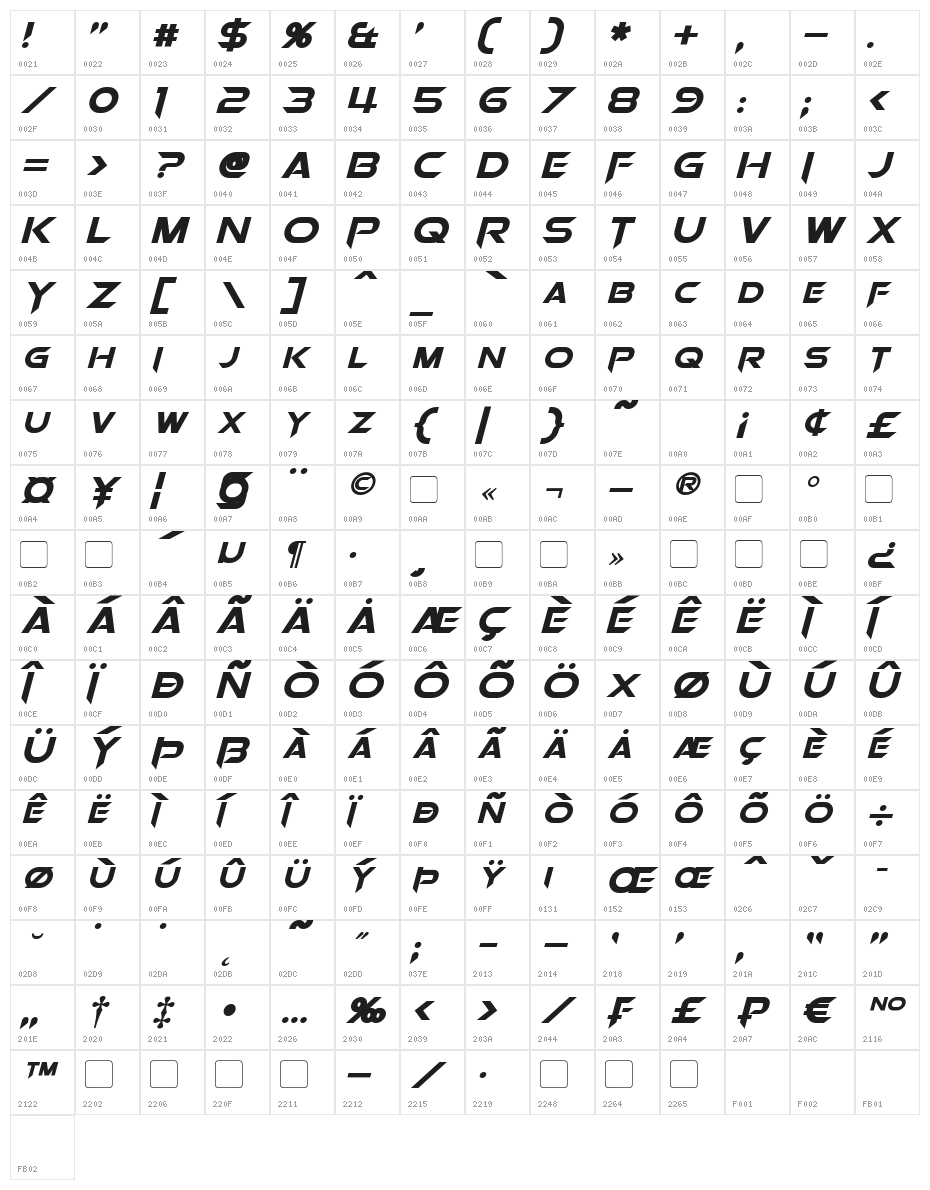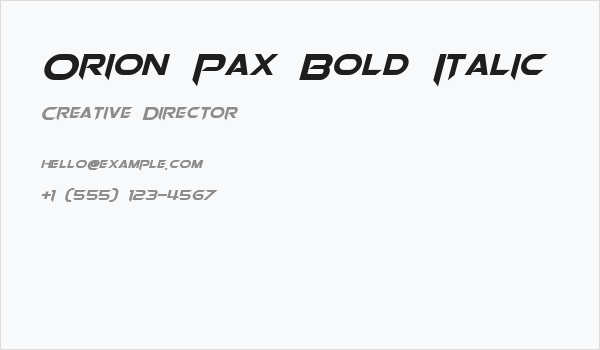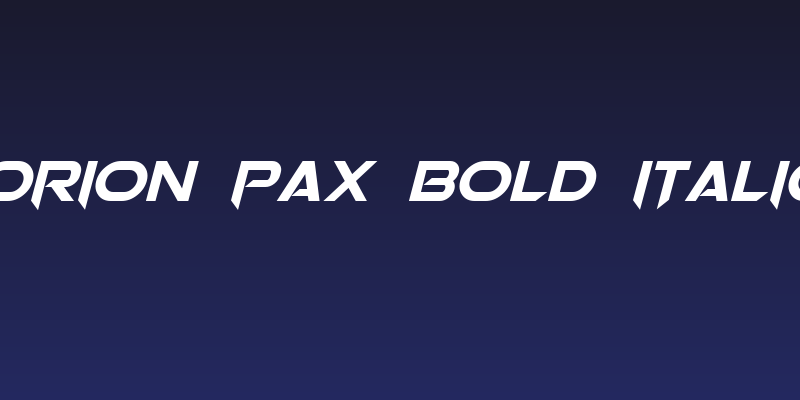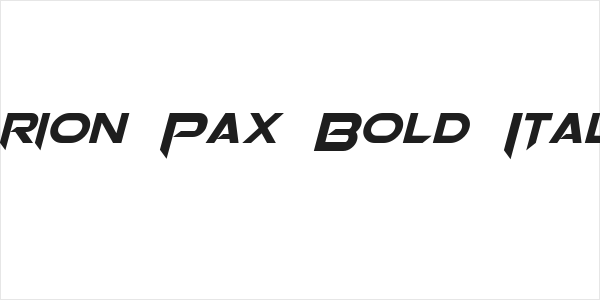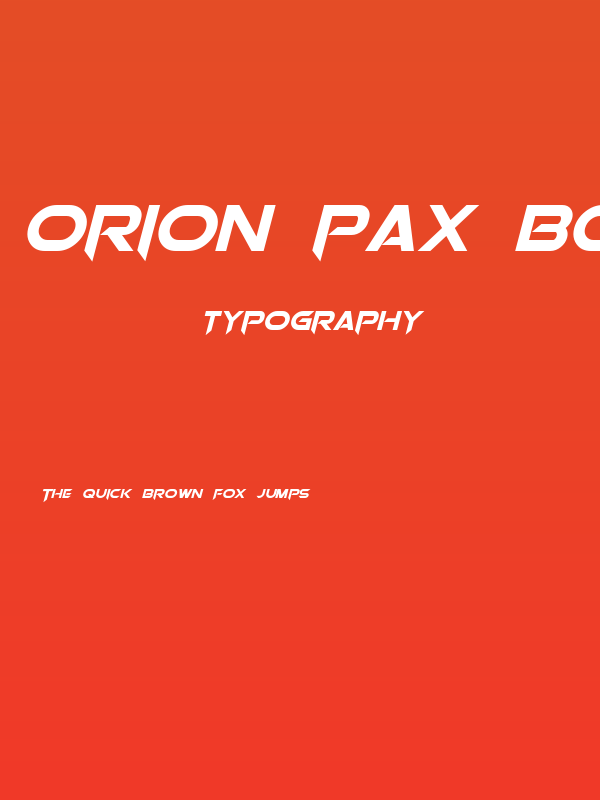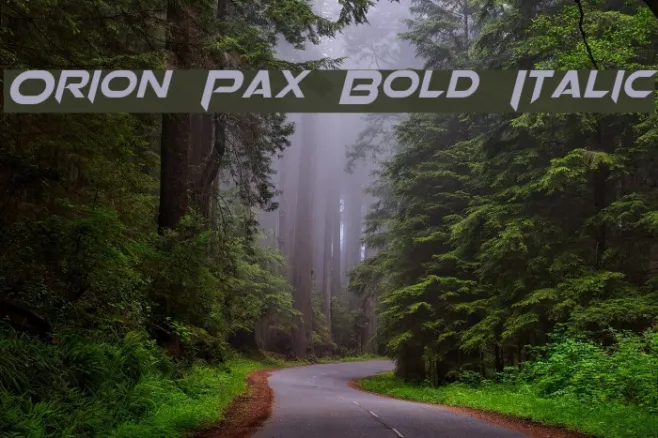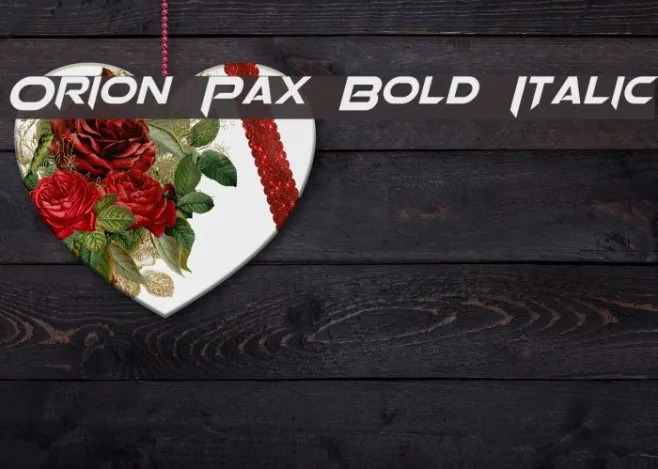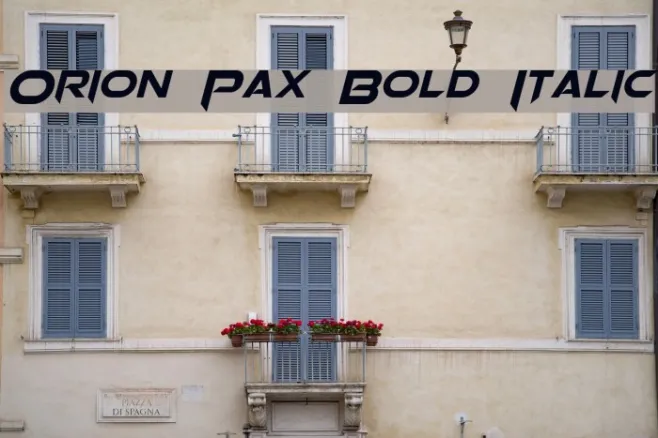
Orion Pax Bold Italic Font
Orion Pax Bold Italic Description
This font features a bold and italicized style with a futuristic and dynamic appearance. The characters have sharp, angular edges and a forward-leaning posture, giving a sense of motion and speed. The uppercase and lowercase letters maintain a consistent design, with the lowercase slightly smaller in size but equally bold. The numbers and special characters follow the same angular and italicized style, ensuring uniformity across all glyphs. This font's unique design makes it stand out, ideal for projects that require a modern and edgy look.
| Proposed Projects | Ideal for sci-fi themed designs, video game titles, tech branding, and dynamic posters. |